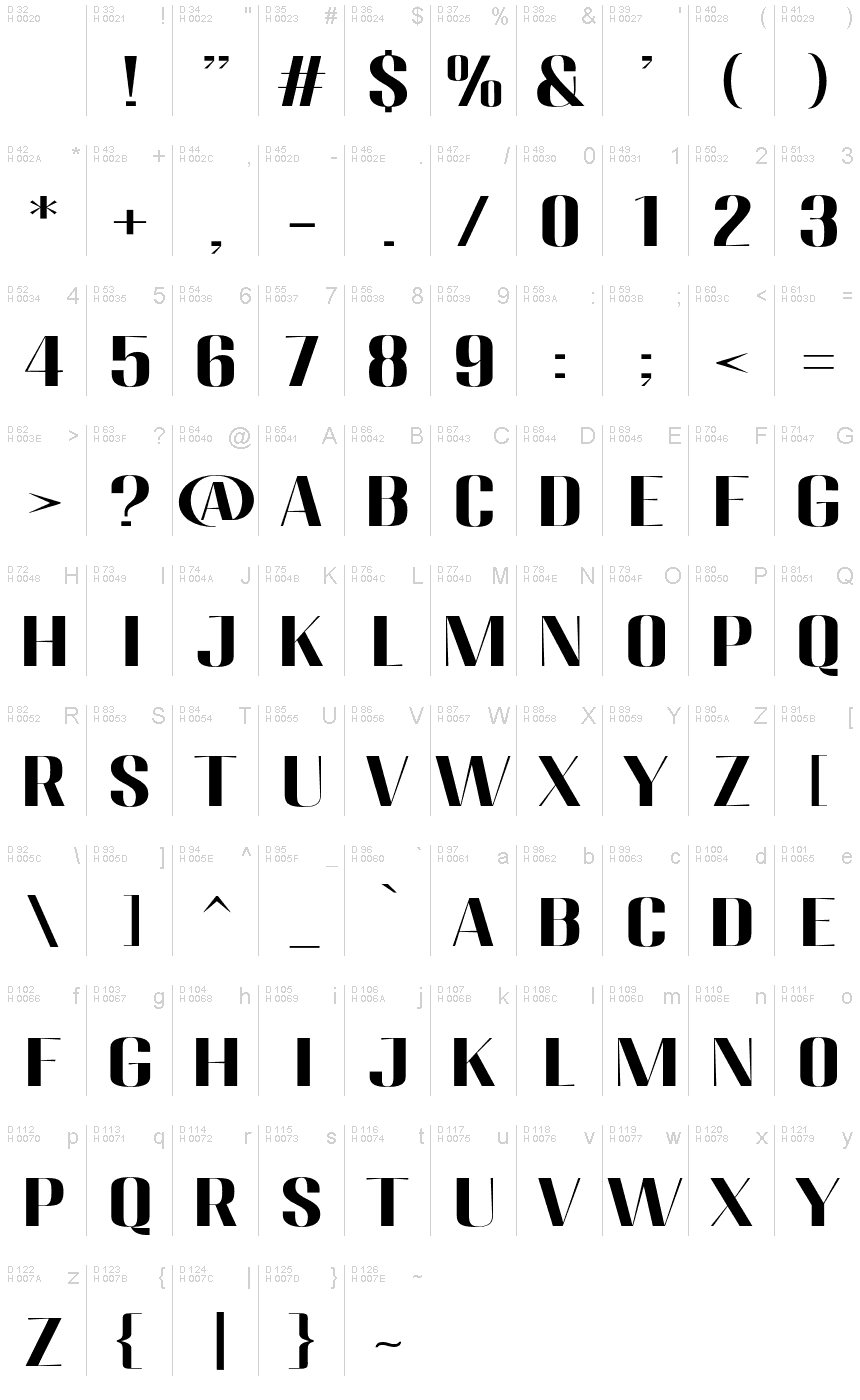
Migha-BoldExpanded
Migha Bold Expanded is a sans serif typeface designed by Seniors Studio. Its bold weight and semi-expanded width make it perfect for projects that need to convey strength and confidence, such as branding materials, packaging design, or advertising campaigns. The clean lines of this font style ensure readability on both digital and print media, while its modern look adds a touch of sophistication to any project. Whether you're creating a website for a law firm or designing a poster for a music festival, Migha Bold Expanded is the versatile font choice that will elevate your designs to the next level.